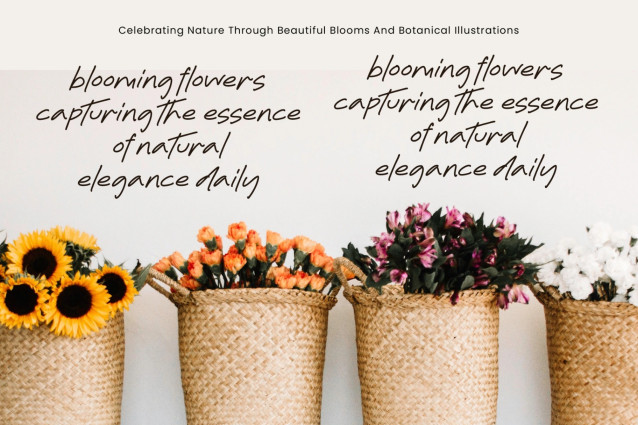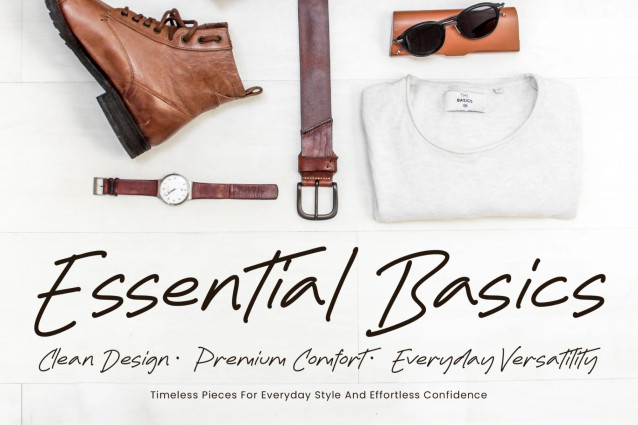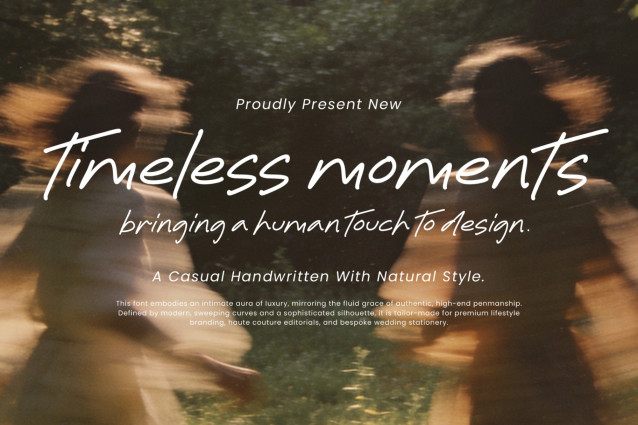
Timeless Moments Font
Timeless Moments Font is a graceful casual handwritten font designed to capture the beauty of natural human expression. Inspired by authentic handwriting, this typeface combines flowing strokes, elegant movement, and effortless charm to create typography that feels personal, warm, and refined.
With its smooth letterforms and naturally connected rhythm, Timeless Moments brings a sophisticated handwritten aesthetic without sacrificing readability. Every character is carefully crafted to reflect the spontaneity of real penmanship, making it an ideal choice for projects that require authenticity, elegance, and emotional connection.
Whether used for branding, social media, editorial layouts, packaging, or wedding stationery, Timeless Moments adds a distinctive handcrafted touch that elevates any design with understated sophistication.
Its modern handwritten style balances casual beauty with professional versatility, allowing it to work seamlessly across both contemporary and timeless visual identities.